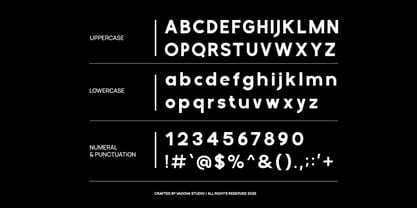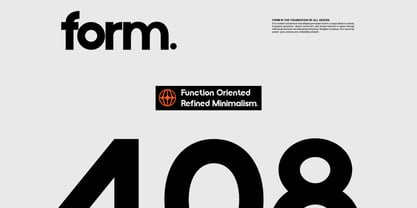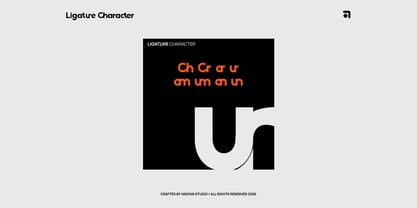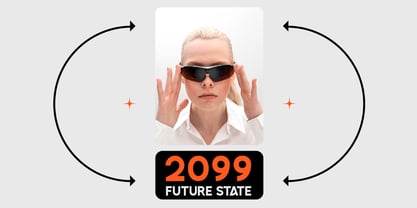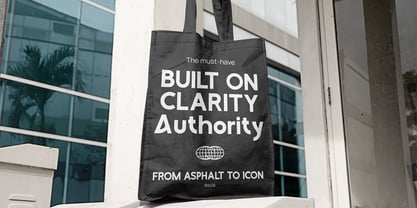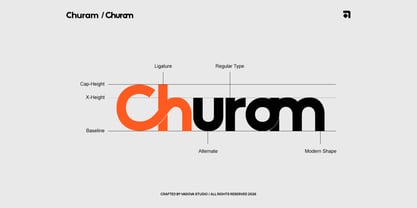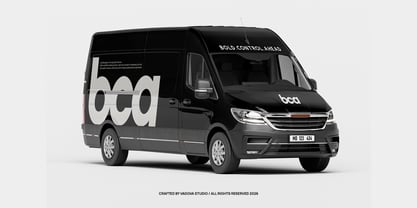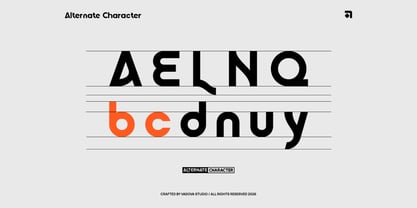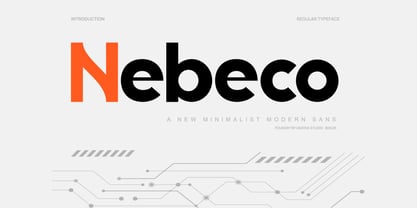
Nebeco
Nebeco is a minimalist modern sans serif typeface designed with precision, clarity, and contemporary structure. Built on a clean geometric foundation with balanced proportions, Nebeco delivers a strong yet refined visual presence ideal for modern branding. Nebeco is ideal for corporate branding, technology startups, SaaS platforms, digital products, UI/UX systems, architecture studios, creative agencies, packaging design, and modern marketing materials. Its structured yet friendly appearance makes it perfect for brands seeking clarity, professionalism, and a forward-looking aesthetic.